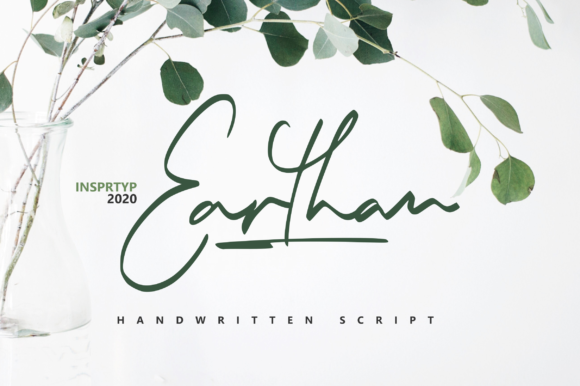
Earthan Font: Elevate Digital Marketing Visuals
Earthan for Scroll-Stopping Social Media Graphics
Earthan, Script Handwritten styles, and premium Fonts are essential tools for marketers aiming to capture attention in crowded digital feeds. As a content creator or social media manager, you understand that the first millisecond of visual contact determines whether a user scrolls past or stops to engage. Earthan is an exquisite handwritten font, masterfully designed to become a true favorite because it bridges the gap between authentic human touch and polished professional design. When creating Instagram carousels, Pinterest pins, or TikTok covers, this typeface offers a distinct advantage over standard system fonts. Its contemporary flow feels fresh enough for modern trends while retaining the classy calligraphic influences that signal quality and trustworthiness.
In the realm of social media graphics, readability on mobile devices is paramount. Earthan excels here because its letterforms are open and balanced, preventing the visual clutter that often plagues decorative script fonts. When used for inspirational quote graphics or announcement overlays, the font maintains legibility even at smaller sizes or against complex background imagery. This makes it an ideal choice for brands that need to communicate warmth and personality without sacrificing clarity. By integrating Earthan into your template library, you ensure that every post carries a consistent visual signature that audiences begin to recognize instantly, reinforcing brand recall with every impression.
Enhancing Brand Identity with Earthan Typography
Building a cohesive brand identity requires Fonts that resonate emotionally, and Earthan serves as a powerful anchor for lifestyle, beauty, and creative businesses. For marketing specialists tasked with defining a brand's visual voice, this Script Handwritten typeface provides a sophisticated alternative to generic display fonts. It maintains its classy calligraphic influences while feeling contemporary and fresh, allowing brands to appear established yet current. Whether you are designing a logo mark, a signature element for email newsletters, or packaging for a product launch, Earthan conveys a sense of bespoke craftsmanship that mass-produced typography cannot replicate.
The versatility of Earthan allows it to function across multiple touchpoints in a customer journey. Consider a skincare brand launching a new serum: using Earthan for the product name on the bottle creates a premium shelf presence, while using the same font for the campaign’s digital ads ensures a seamless transition from physical to digital. This consistency builds trust. Furthermore, because the font feels handcrafted, it supports narratives around sustainability, artisanal quality, and personal care. Marketers can leverage this psychological association to justify premium pricing or differentiate commoditized products in competitive niches. Fall in love with it and watch how it transforms static brand guidelines into a living, breathing visual language.
Strategic Font Pairing with Earthan for Campaigns
To maximize the impact of Earthan in advertising and web design, pairing it correctly with complementary Fonts is a critical skill for any designer. While Earthan is an exquisite handwritten font perfect for headlines and accents, it performs best when grounded by a structured counterpart. For high-conversion landing pages or digital banners, combine Earthan with a clean, geometric sans serif font for body copy. This contrast establishes a clear visual hierarchy: the script draws the eye to the value proposition or offer, while the sans serif delivers the details with frictionless readability. This combination is particularly effective for webinar banners, sale announcements, and promotional emails where information density is high.
Alternatively, for editorial content, luxury lookbooks, or long-form blog headers, pairing Earthan with a classic serif font creates a timeless, magazine-quality aesthetic. The interplay between the fluid strokes of the Script Handwritten style and the rigid structure of a serif reinforces a narrative of elegance and authority. When designing YouTube thumbnails or Reels covers, this pairing ensures that text remains legible against video backgrounds while still conveying the intended mood. Avoid pairing Earthan with other highly decorative scripts, as this competes for attention and reduces comprehension. Instead, let Earthan be the singular focal point of expression, supported by utilitarian typefaces that facilitate the user experience.
Optimizing Earthan for Digital Ads and Thumbnails
Digital marketers know that ad performance often hinges on creative testing, and Earthan offers a unique variable for A/B testing headline treatments. Unlike standard bold sans serifs that can feel aggressive or corporate, Earthan introduces a softness that can lower resistance in cold audiences. When used in Facebook or Instagram ads for coaching services, handmade goods, or wellness products, this Script Handwritten font signals empathy and approachability. However, optimization is key. Ensure that when Earthan is used in paid media, the kerning is adjusted for screen viewing; tight spacing that looks fine in print can become illegible on a smartphone screen. Always test the font at actual display size before launching a campaign.
For YouTube creators and video marketers, thumbnails are the primary driver of click-through rates. Earthan works exceptionally well for emotive titles, such as "My Honest Review," "Day in the Life," or "Behind the Scenes." The handwritten nature suggests authenticity and unscripted content, which aligns perfectly with current viewer preferences for genuine connection. To maintain readability, use Earthan for three to five words maximum in a thumbnail, utilizing high-contrast colors or drop shadows to separate the text from the background image. This strategic restraint ensures the message is consumed instantly during fast scrolling. Remember that Earthan is an exquisite handwritten font designed for impact, not volume; use it to highlight the emotional hook, not the technical specs.